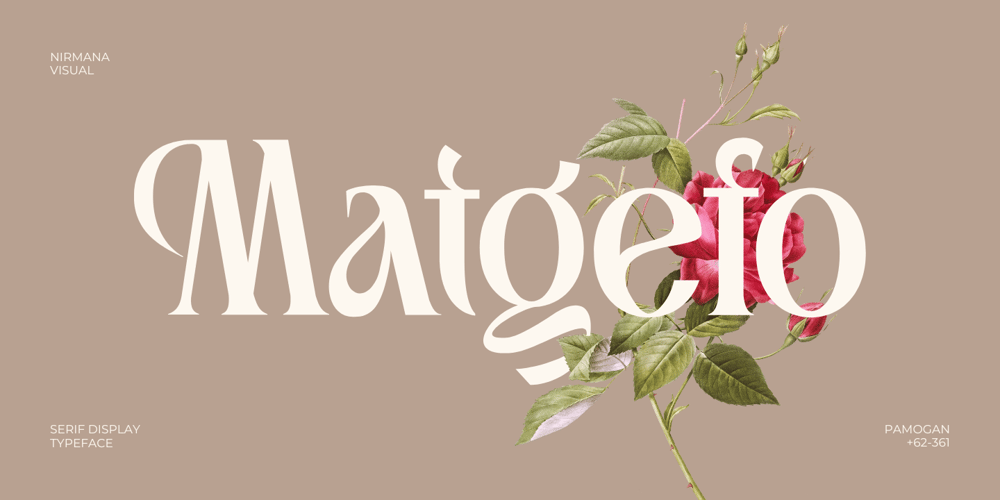
Matgefo Vintage Font Family was designed by Sigit Dwipa and published by Nirmana Visual. Matgefo Vintage contains 1 styles and family package options. Matgefo Vintage-themed fonts play a crucial role in graphic design, evoking nostalgia and aesthetic appeal reminiscent of bygone eras. These fonts are characterized by their classic elegance, intricate details, and timeless charm, making them invaluable assets in various design projects.In graphic design, vintage fonts are highly versatile. They are perfect for creating logos, labels, posters, and signage that require a touch of elegance and historical flair. Whether used sparingly for emphasis or as the primary visual element, these fonts add depth and character, instantly capturing attention and conveying a message of heritage and authenticity.